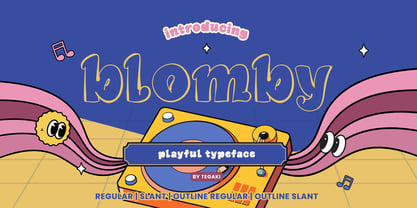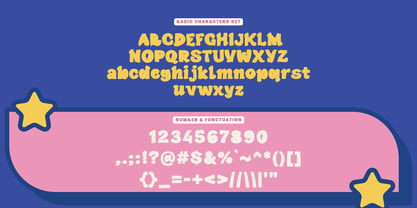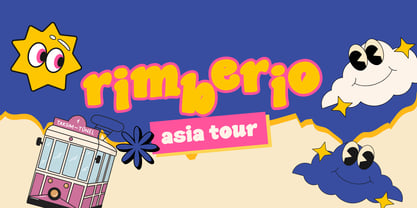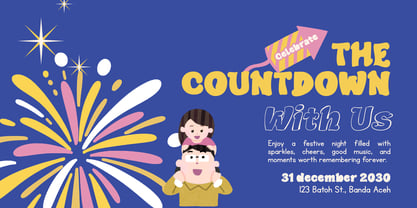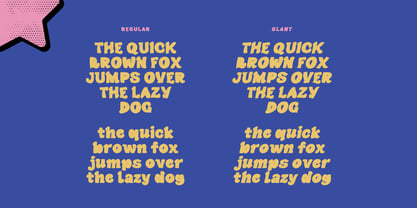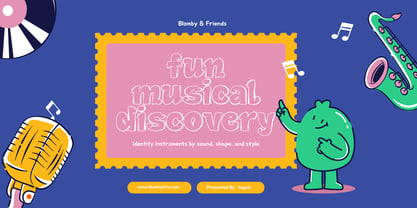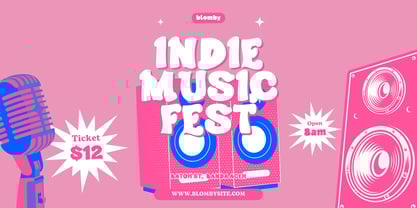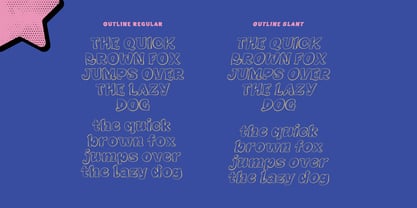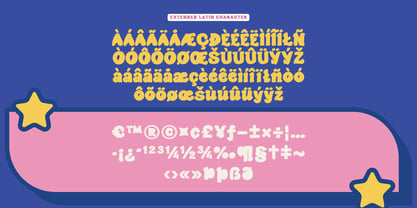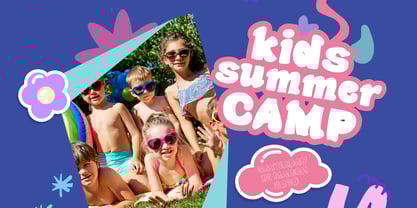
Blomby
by Tegaki
The Blomby Font Family was designed by Rudi Suhairi and published by Tegaki. Blomby contains 4 styles and family package options. More about this family
Blomby – Playful Typeface Blomby is a playful display typeface designed to bring fun, charm, and a cheerful personality into your designs. Featuring soft curves, rounded shapes, and friendly letterforms, Blomby creates a lively and eye-catching look that feels energetic and approachable. This typeface comes in two types: Full Bold and Outline, and each type includes Regular and Slant styles, giving you versatile options to create both clean and dynamic typography compositions. Blomby is perfect for children’s projects, playful branding, packaging, posters, logos, social media graphics, merchandise, stickers, and entertainment designs. Its joyful and expressive character makes it ideal for designs that need a cute, fun, and vibrant visual presence.
Designers: Rudi Suhairi
Foundry: Tegaki